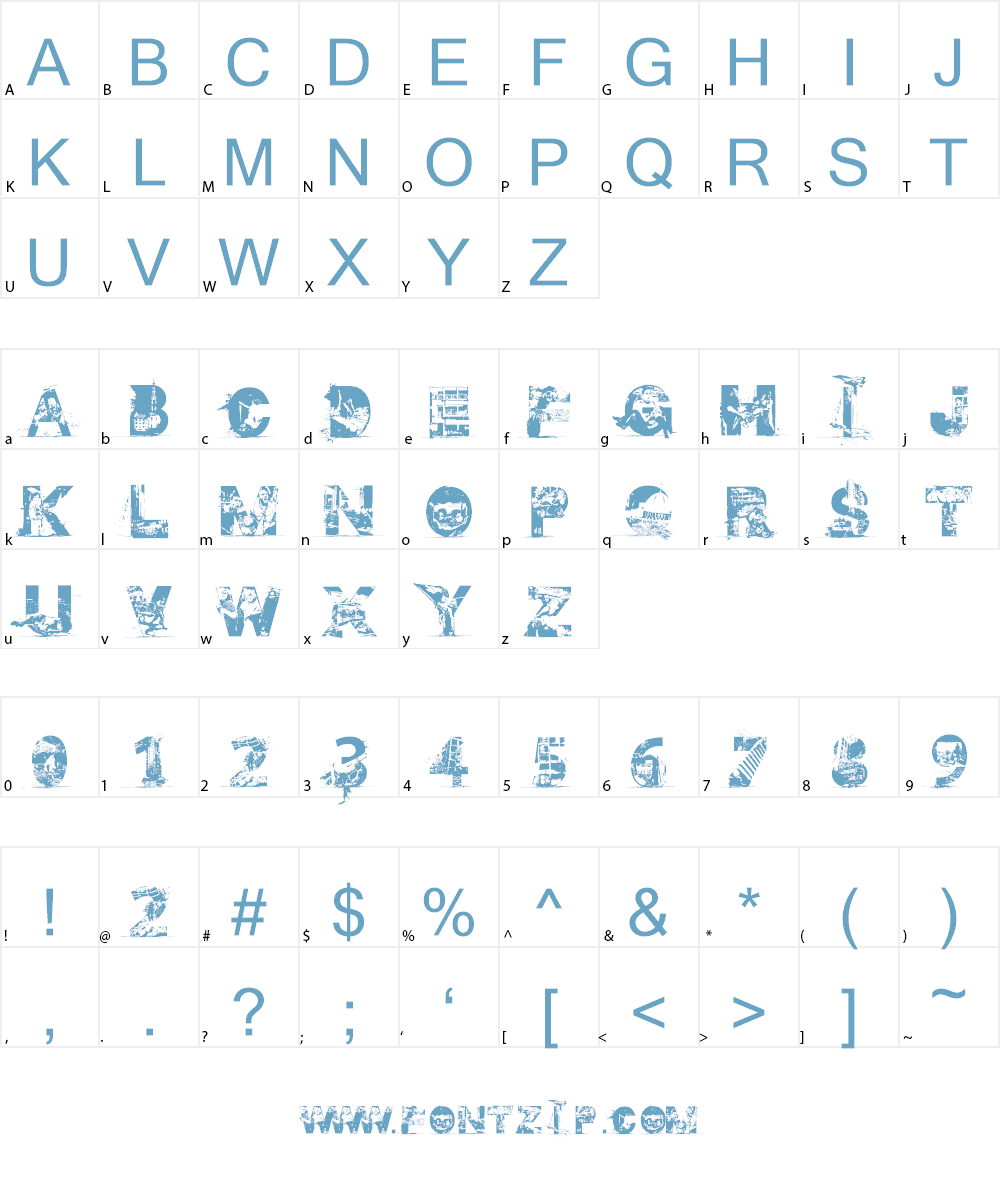
To immortalize the most resilient nation in the world and shed light on its unrevealed stories, the Gaza Font was created.
Every letter and number are the beginning of a story little-known, now revealed and eternalized. Uncover, use and share the Gaza Font; because what has been written can never be erased.